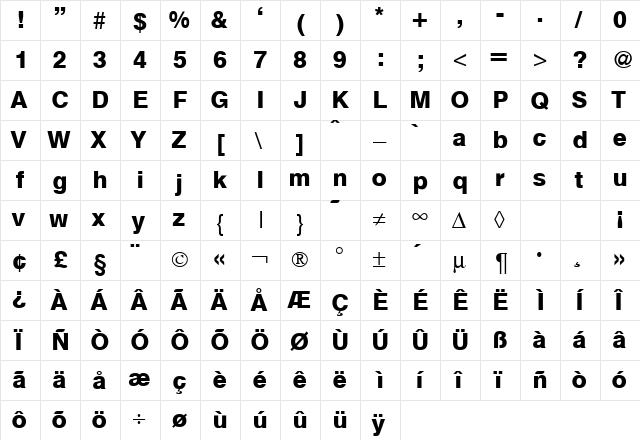
HegelDemi Regular
Design Context for HegelDemi Typeface
HegelDemi offers clean, dependable letterforms without strong stylistic allegiance, making it a practical choice for designers who need flexibility.
Pro Tip: Use HegelDemi in both headline and body roles to test its range before committing to a single application.